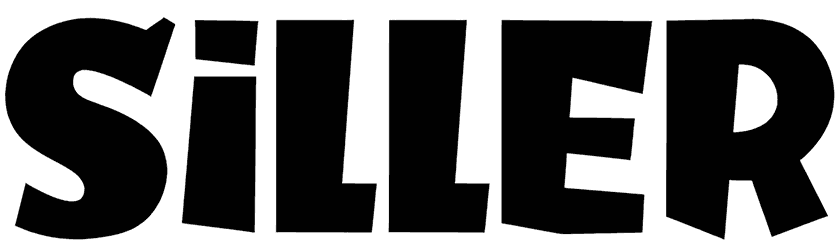
Siller Font
Here we are again to introduce you to Siller, a lovely cartoon font that comes with two distinctive versions of uppercase letters. This fancy font is perfect for your graphic projects and allows you to create high-end content including book covers, magazines, logos, gift cards, and greeting cards.
Considering its ability in sharing a sense of friendliness, comfortability, disorder, and dynamic, the lack of lowercase letters, numbers, and punctuations is not a serious problem.